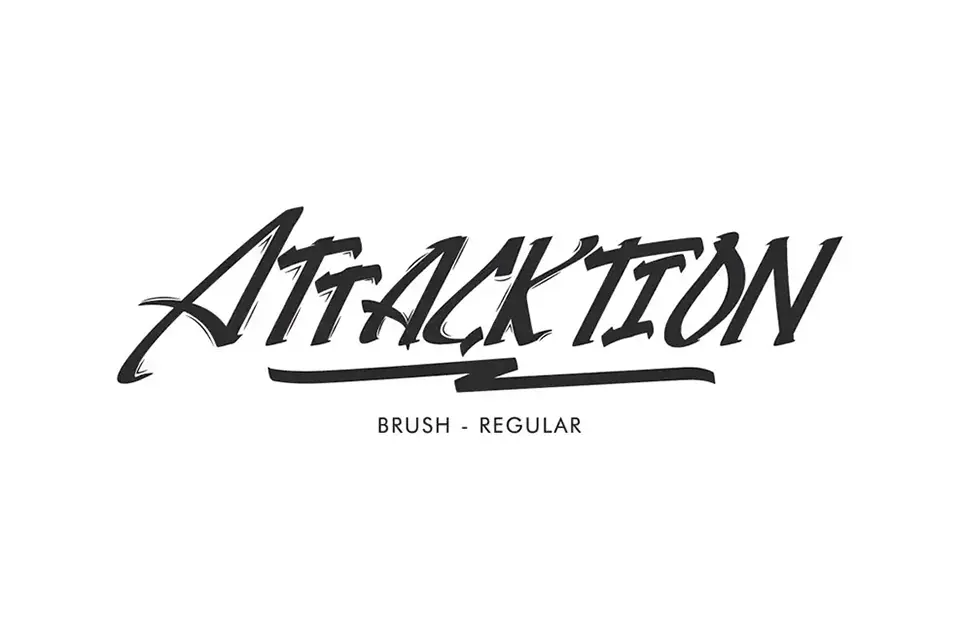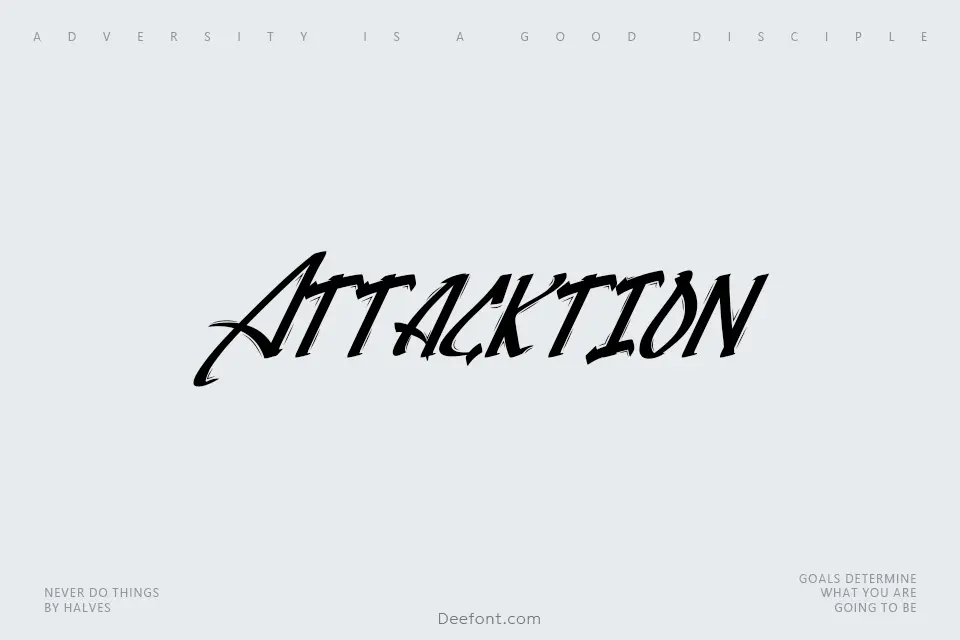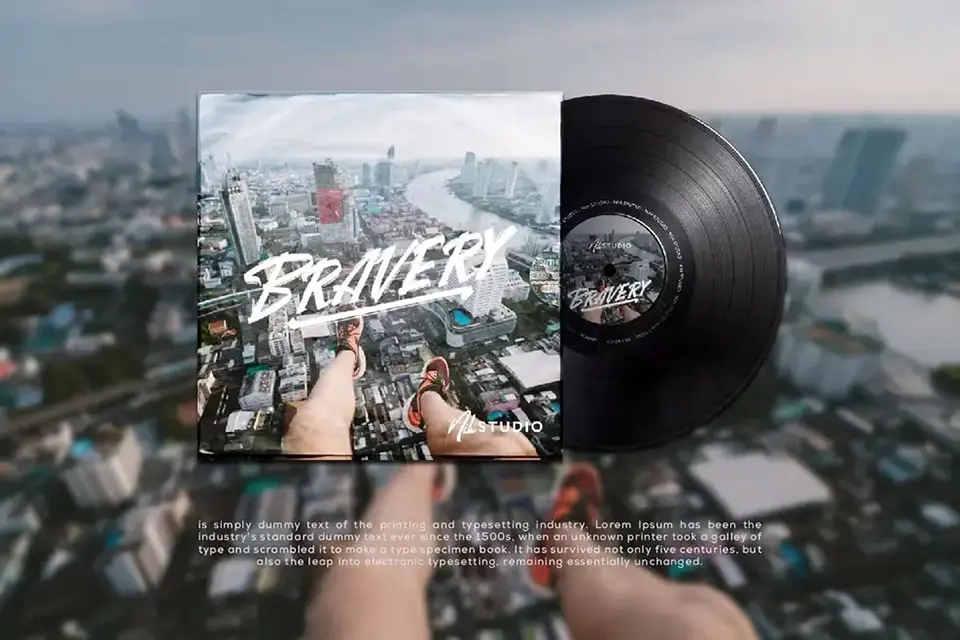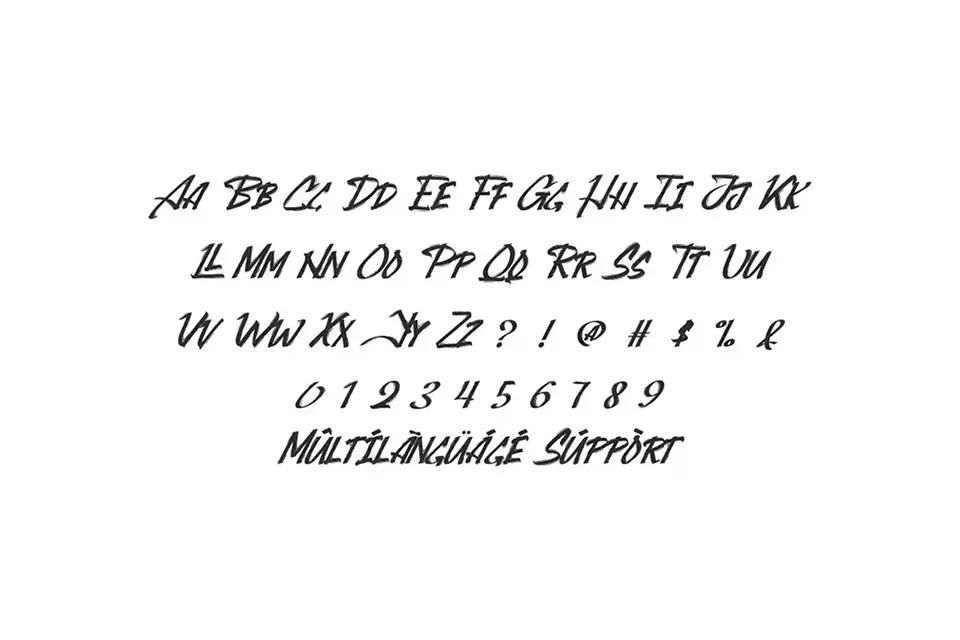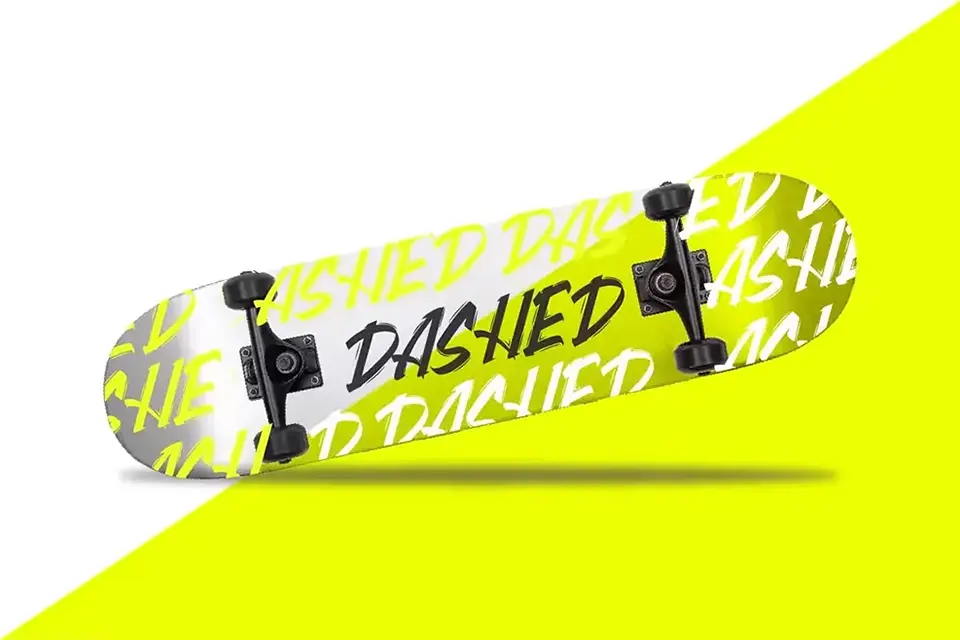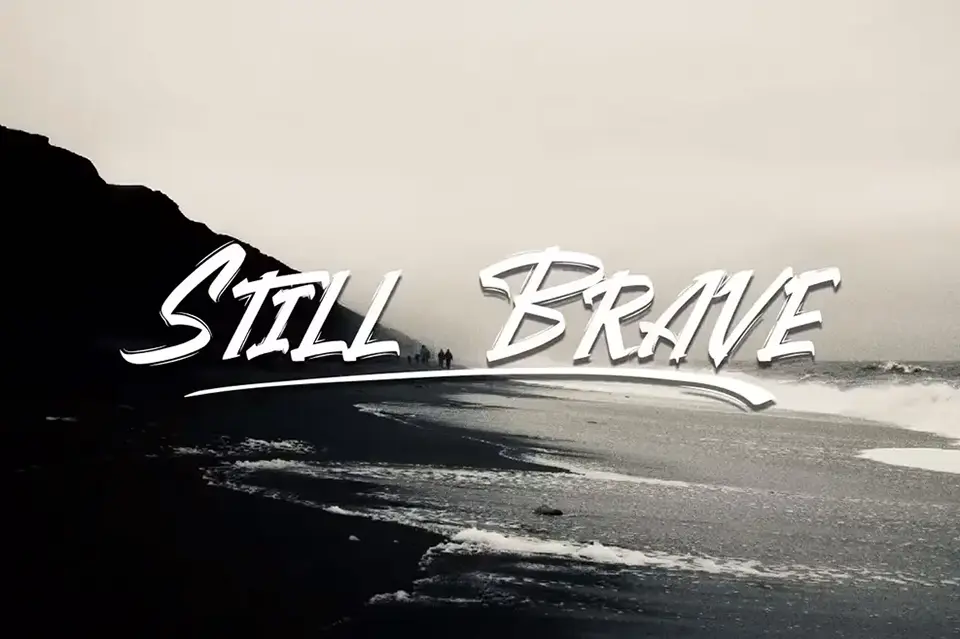
Attacktion Font
Attacktion is an inspiring graffiti brush typeface featuring two distinct styles: a clean regular version and a textured brush variant. Created in 2020 by designers Widiyanti and Suci Anita from NihStudio, this dynamic font brings street art energy to creative projects. The font showcases bold, artistic strokes with unique character details, making it ideal for branding, posters, and display designs. With its expressive graffiti aesthetic, Attacktion combines urban style with contemporary design sensibilities, perfect for projects requiring a distinctive visual impact.